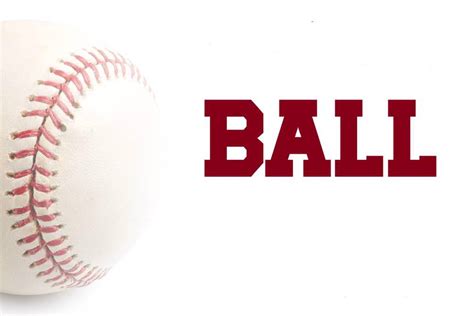
Free IBaseball Club Solid Font Download & Guide
Free iBaseball Club Solid Font Download & Guide
Hey baseball fanatics and design enthusiasts! Are you looking to jazz up your projects with a touch of the diamond? Well, you’re in the right place! We’re diving headfirst into the world of the iBaseball Club Solid font, offering you a free download and a guide to get you started. This font is perfect for a wide range of uses, from crafting eye-catching team logos to designing cool social media posts and even creating personalized baseball cards. So, grab your bats and gloves, because we’re about to knock this out of the park! This article covers everything you need to know about the iBaseball Club Solid font, including where to download it for free, how to install it, and some awesome ways you can use it to elevate your designs. Let’s get started!
Creative Uses for the iBaseball Club Solid Font
Alright, now for the fun part: how to use this awesome font to make your designs pop! The iBaseball Club Solid font is perfect for a wide variety of projects, especially those with a baseball theme. Team logos are an obvious choice. The font’s bold, solid style makes it ideal for creating strong, recognizable logos that stand out. Think about using the font to create your team’s name or a catchy tagline on merchandise like t-shirts, hats, and banners. Consider the color scheme of your team and use the font to create a cohesive look. Social media is another great place to use this font. Craft eye-catching graphics for Instagram, Facebook, and Twitter. Use the font to create engaging quotes, announcements, and promotional materials. Its readability makes it perfect for grabbing attention in the fast-paced world of social media. The font can also be used for creating personalized baseball cards . Design unique cards for your favorite players, or even make your own custom cards for fun. Use the font to display player names, stats, and team information. This is a great way to show off your creativity and love for the sport. Beyond these, the iBaseball Club Solid font can be used for invitations and event posters for baseball-themed parties or events. Use it to design flyers for local games, tournaments, or even a casual get-together. The font adds a sporty and fun vibe that’s perfect for these types of occasions. You can also get creative with typography by experimenting with different sizes, colors, and effects. Create interesting text layouts and see how the font looks in combination with other fonts. Consider using the font in conjunction with baseball-related images and graphics to create a cohesive design. The possibilities are truly endless! Remember to have fun and let your creativity run wild.
Tips for Using the iBaseball Club Solid Font Effectively
Now that you’ve got the font installed and are ready to start designing, here are some tips to make the most of the iBaseball Club Solid font. Consider the context : Think about where you will be using the font. Is it for a logo, a social media post, or a poster? The context will influence how you use the font. Logos should be simple and memorable, while social media posts can be more playful. Choose the right size and weight : Experiment with different sizes and weights. The iBaseball Club Solid font is typically bold, but you can adjust the size to make it more or less prominent. Play around with the weight to see how it affects the readability and impact of your design. Pair it with other fonts : Don’t be afraid to mix and match. Pair the iBaseball Club Solid font with a complementary font to add variety to your designs. A clean, sans-serif font can work well for body text, while the iBaseball Club Solid font can be used for headings and titles. Use color wisely : Color can significantly impact the overall look of your design. Experiment with different color combinations. The solid nature of the iBaseball Club font works well with contrasting colors, so you can make your text really pop. The choice of colors should be consistent with your brand or the theme of your project. Think about spacing and kerning : Kerning refers to the spacing between individual letters. Experiment with kerning to adjust how the text looks. Spacing is also important. Ensure there is enough space around your text so it is easy to read. Too little space can make your design look cluttered. Test your designs : Before you finalize your design, test it in various contexts. See how it looks on different devices and in different sizes. Get feedback from others. A fresh pair of eyes can often catch things you might have missed. By following these tips, you can create designs that effectively utilize the iBaseball Club Solid font. Let your creativity guide you, and enjoy the process!
Conclusion: Get Designing with the iBaseball Club Solid Font!
There you have it, guys! Everything you need to know about the iBaseball Club Solid font, from where to download it for free to how to install it and use it effectively. This font is a fantastic tool for any baseball enthusiast or designer looking to add a sporty touch to their projects. Whether you’re creating team logos, social media graphics, or personalized baseball cards, the iBaseball Club Solid font is a great choice. Remember to download from safe sources, install the font correctly, and follow the tips we’ve provided to make the most of it. So go ahead, download the font, fire up your design software, and start creating! We can’t wait to see what you come up with. Happy designing, and play ball!